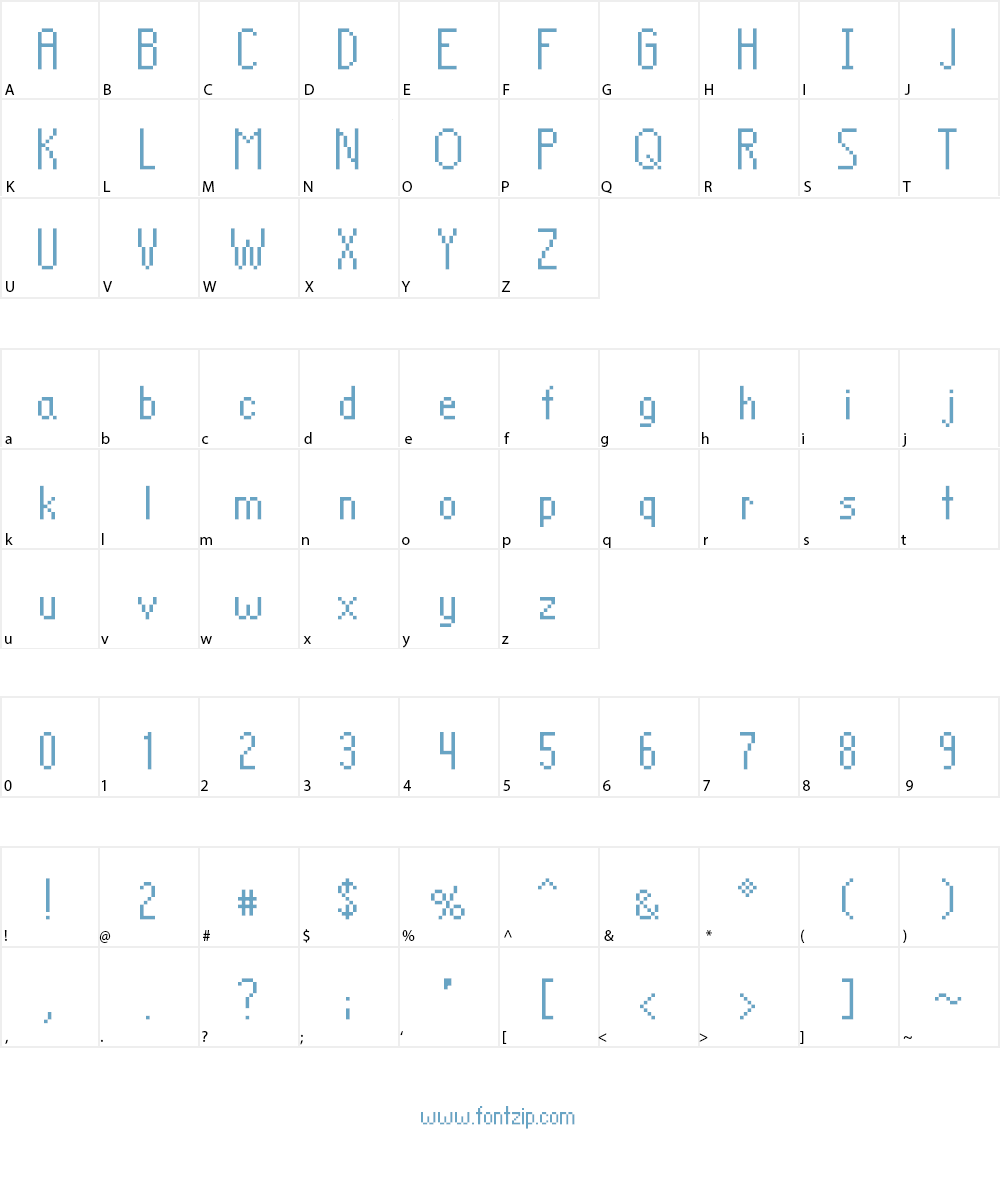
Based on the bitmap font from the Nintendo DS port of "The Sims 2". The word "Zarbville" is the French equivilant of "Strangetown".
Changes in Version 1.1:
-Fixed height issue with number 9
-Added loads more characters!